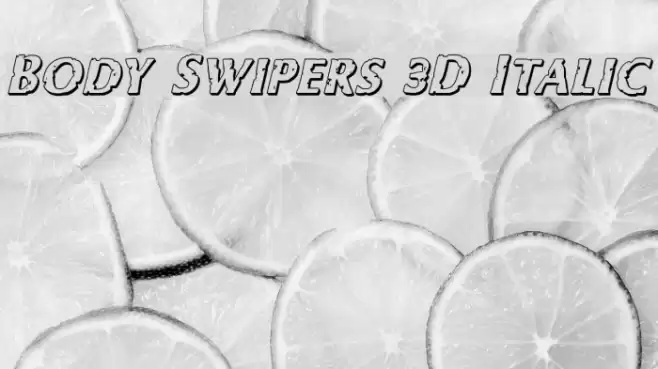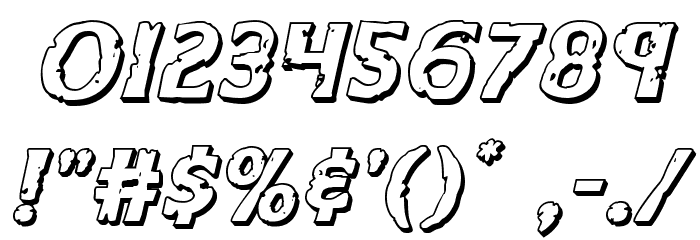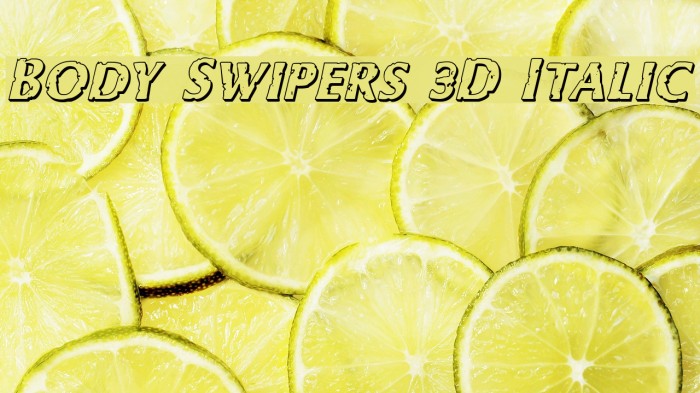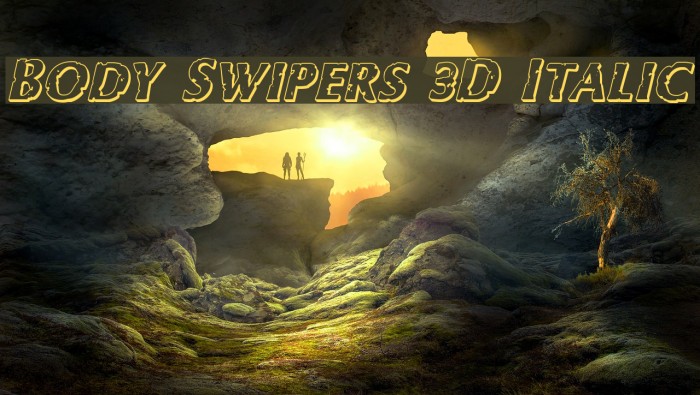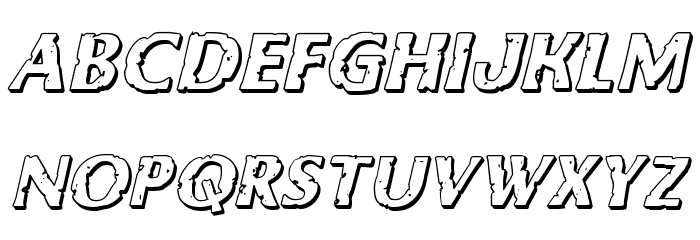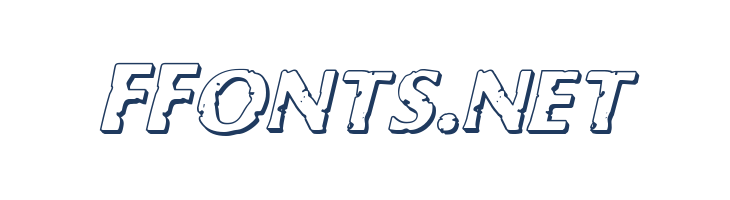
Body Swipers 3D Italic Font
Body Swipers 3D Italic Description
This font features a bold, three-dimensional design with an italic slant, giving it a dynamic and eye-catching appearance. The characters are outlined, creating a sense of depth and movement. The strokes are thick and consistent, contributing to its bold presence. The italic angle adds a sense of forward motion, making it suitable for attention-grabbing headlines or titles. The font includes a full set of uppercase and lowercase letters, numbers, and a variety of special characters, ensuring versatility in design applications.
A bold, 3D italic font with outlined characters and a dynamic style from Distorted Eroded fonts.
- Proposed Projects: Ideal for use in posters, advertisements, video game graphics, and any project requiring a bold, attention-grabbing typeface.